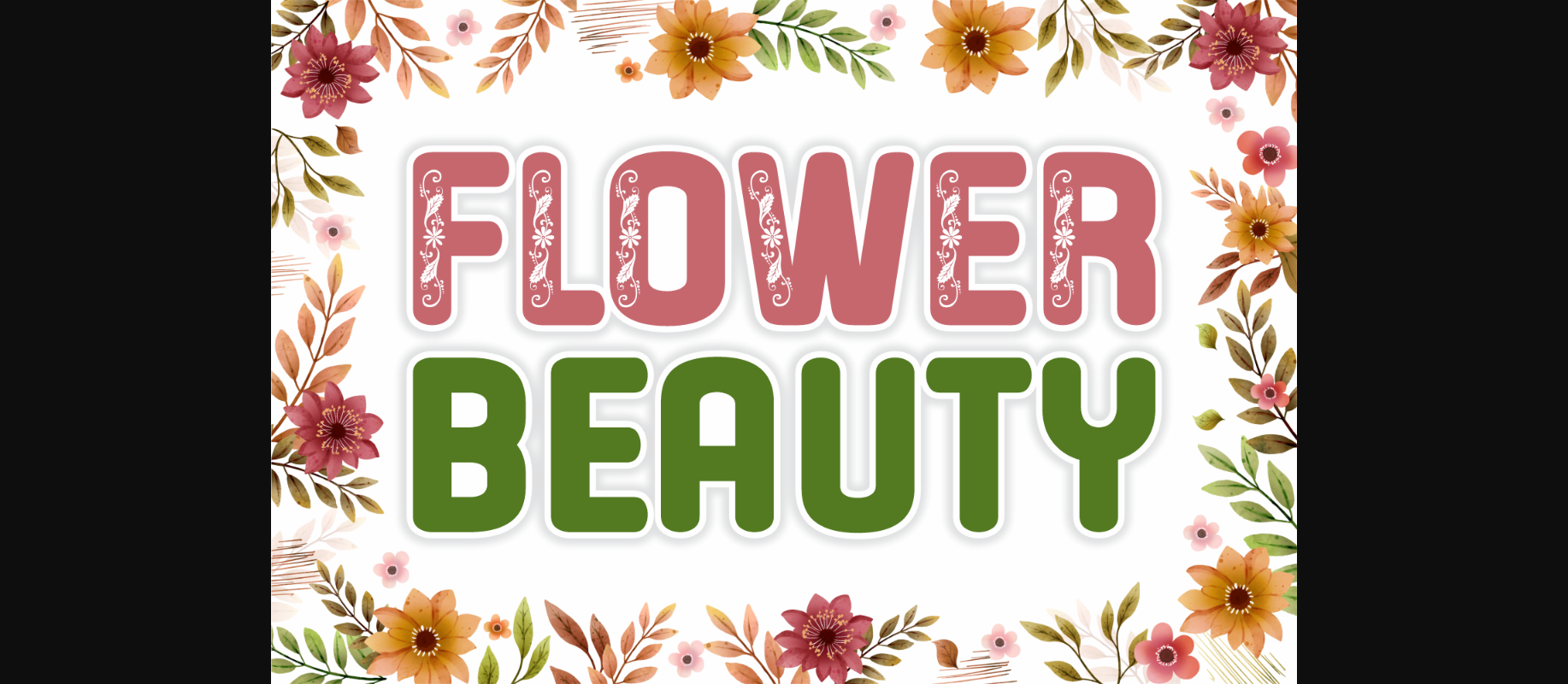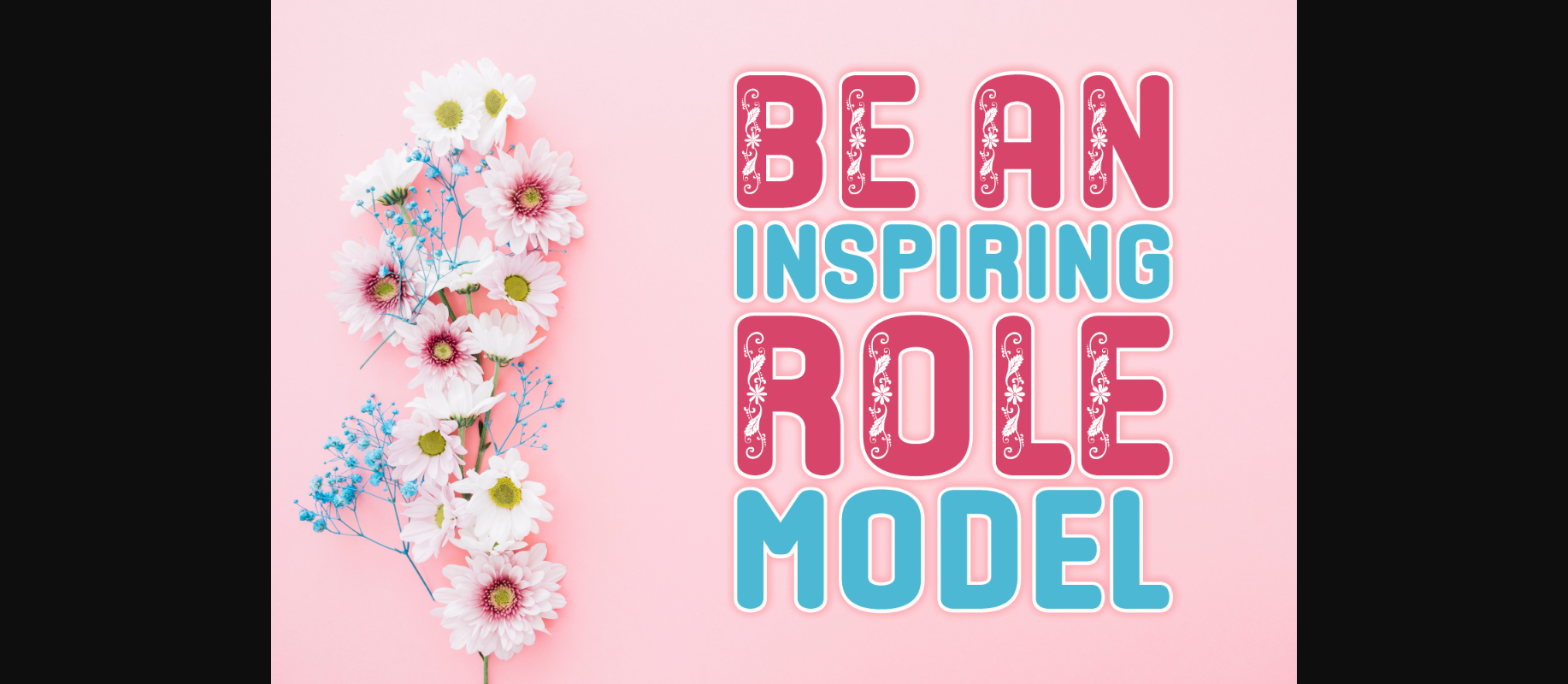
About Flower Beauty Font
Flower Beauty is a lovely and clean decorative font that is perfect for crafting stylish and modern designs. With its rounded edges and smooth curves, it adds a touch of sophistication to any project. Its subtle elegance is sure to make your work stand out. Its versatility makes it great for logos, titles, invitations, and more!